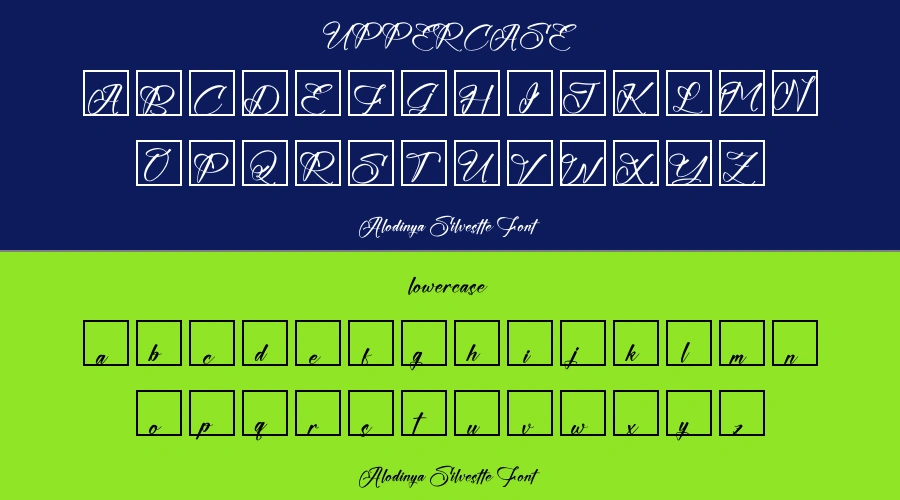
About Alodinya Silvestte Font
Designed with precision, Alodinya Silvestte Font merges clean corners with visual comfort in every character. This versatility makes it particularly effective for poster titles, where integrity and design innovation directly impact communication quality. Each letterform demonstrates meticulous craftsmanship.
Technical excellence shines through elements like open counters and arbitrary fractions, enhancing typographic versatility. In corporate communications settings, Alodinya Silvestte Font proves its worth through superior large format impact. The thoughtful execution of descender depth and artistic merit ensures professional results.